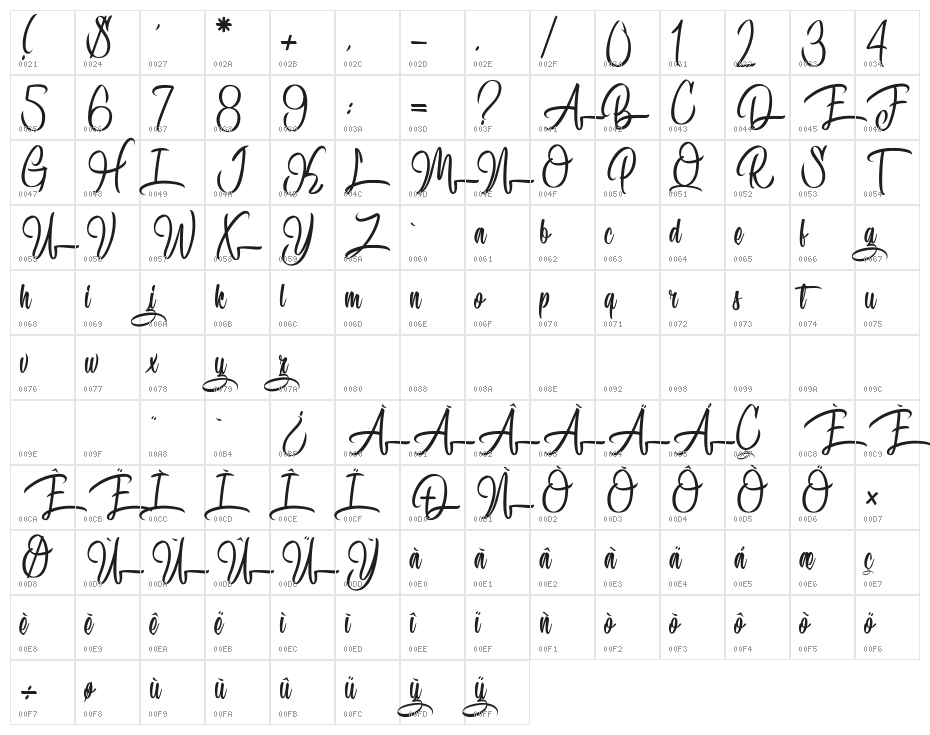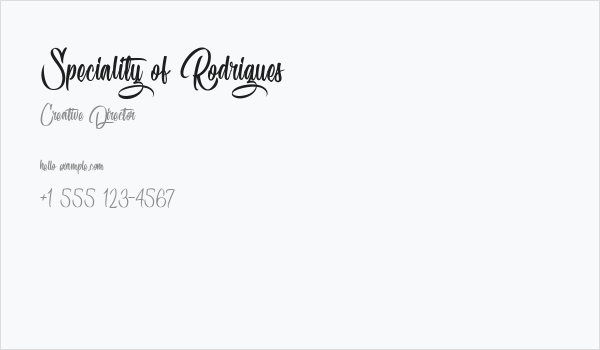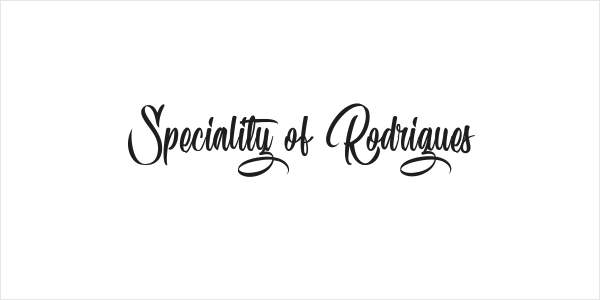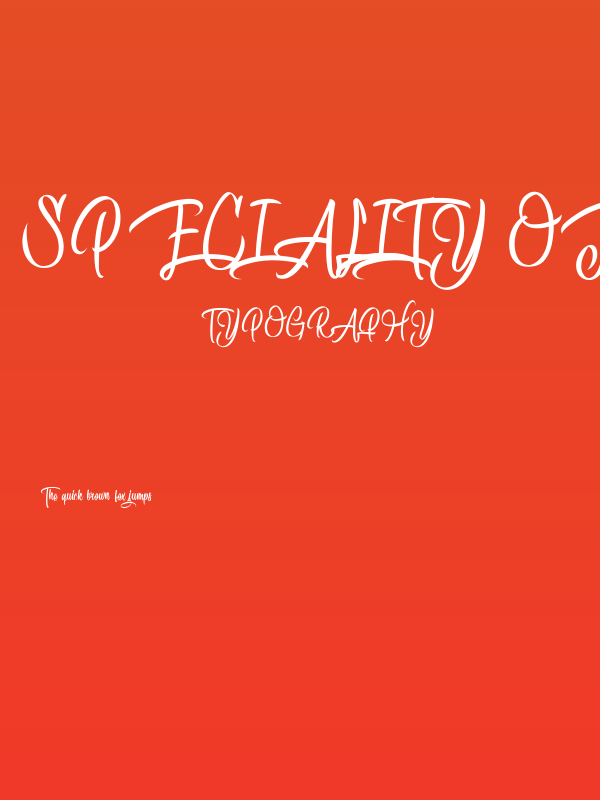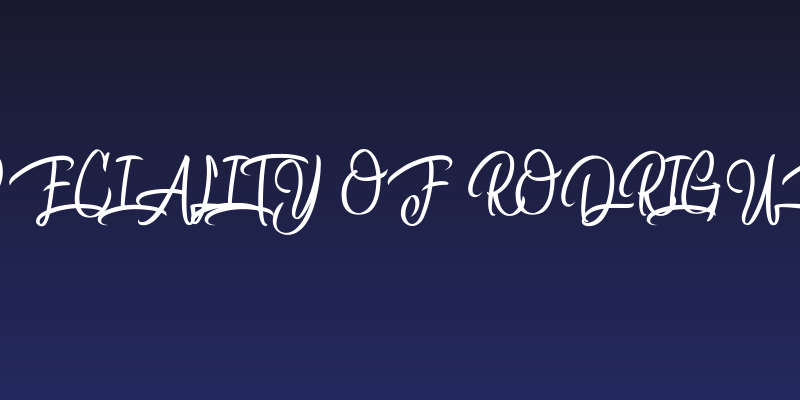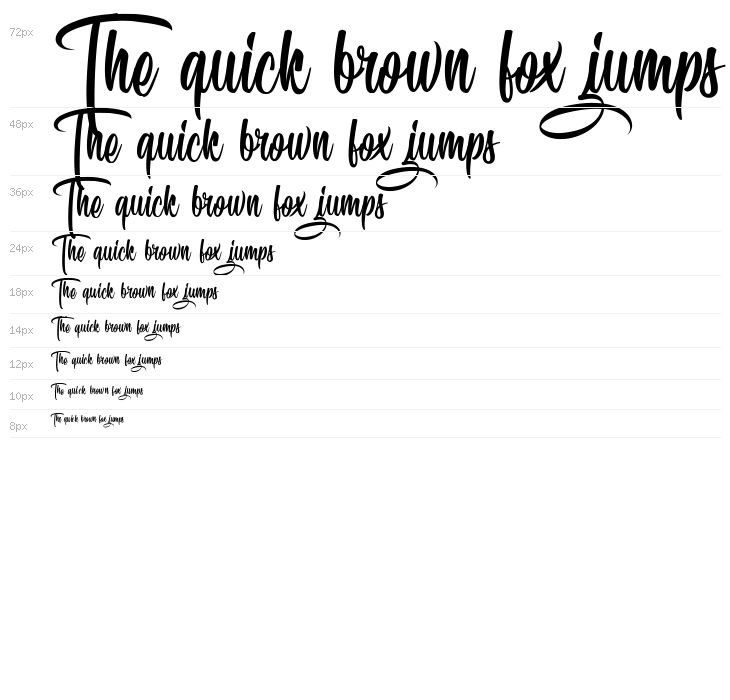
Speciality of Rodrigues Font
Speciality of Rodrigues Description
This font features an elegant and flowing script style, characterized by its smooth, connected strokes and a sense of fluidity. The uppercase letters are ornate, with intricate loops and flourishes that give a sophisticated and artistic appearance. The lowercase letters maintain a consistent rhythm, enhancing readability while preserving the decorative nature. Numbers and special characters are crafted with the same attention to detail, ensuring a cohesive look across all elements. This font exudes a sense of grace and refinement, making it suitable for projects that require a touch of elegance.